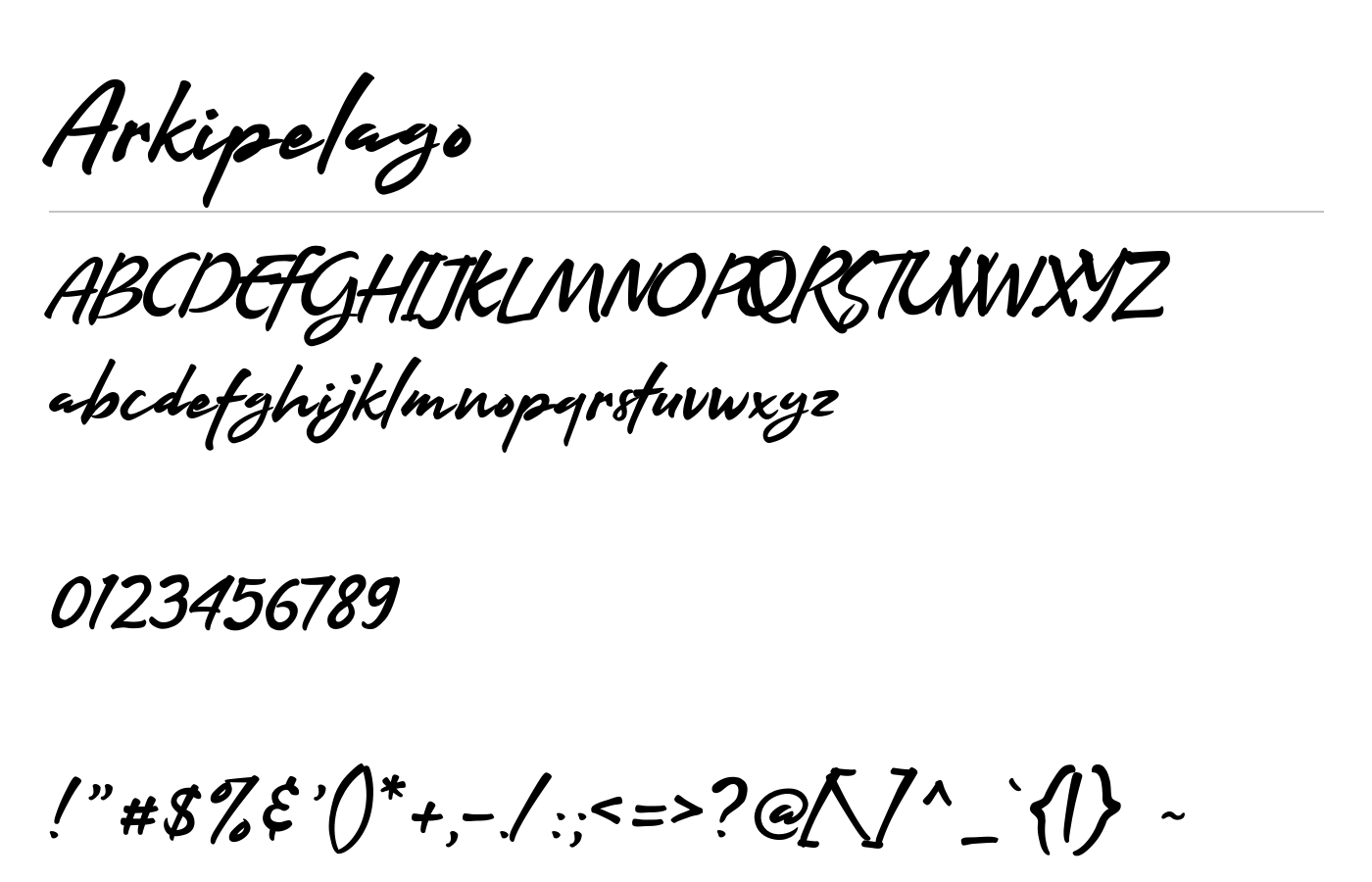
Arkipelago is a dynamic handwritten script font with a bold, casual feel, featuring smooth, flowing strokes that convey energy and authenticity. Its slightly condensed letterforms and natural brush-like style make it perfect for creative and informal branding, logos, or headings that want to express personality and warmth. This font works well in projects that seek a lively, approachable touch without sacrificing readability.
Arkipelago Font
About Arkipelago Font